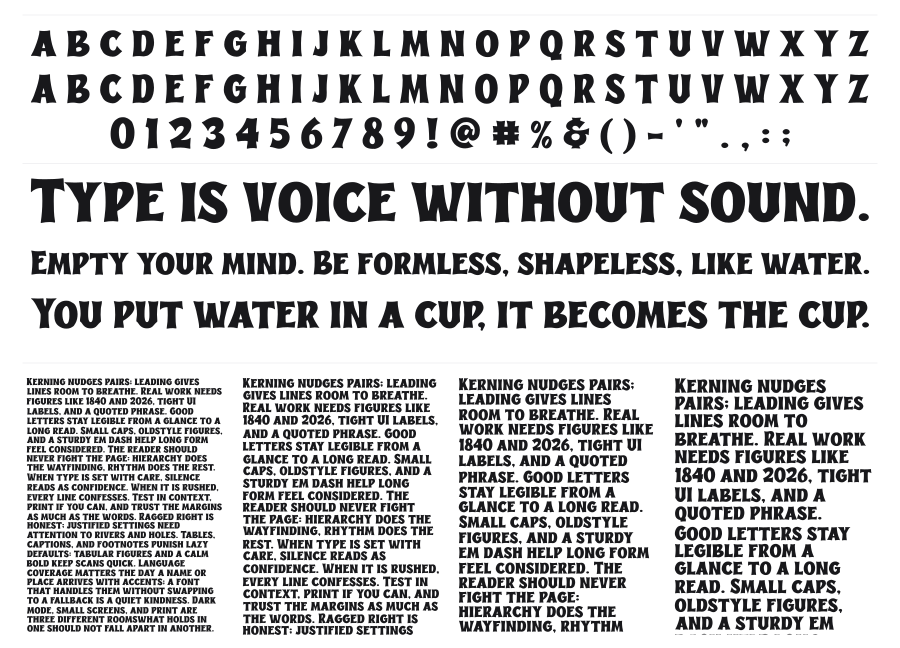
Jackler West
Jackler West is a bold condensed serif with heavy wood-type energy and Wild West roots. Chunky wedge serifs and slight organic irregularities in the strokes give it the look of hand-carved poster lettering from the frontier era. Strong at large sizes for headlines, posters, and branding with a retro-americana character.